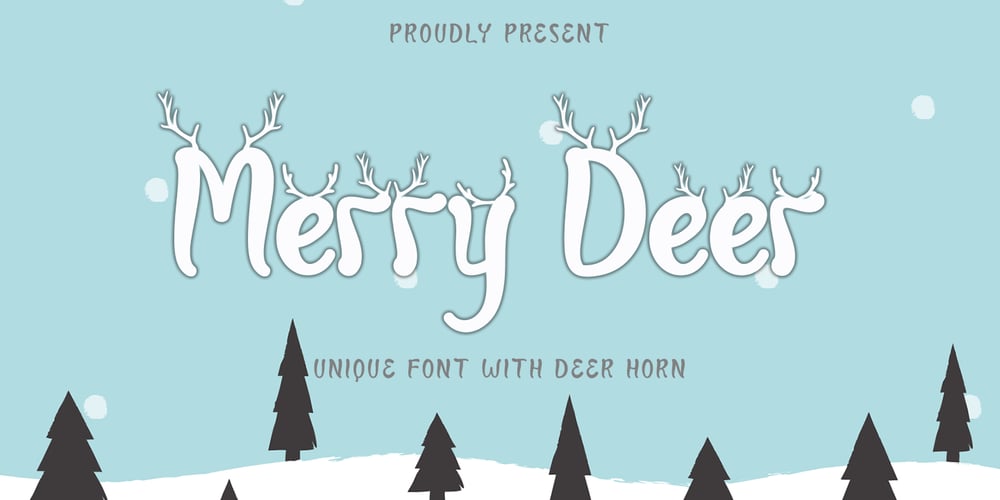
Merry Deer Font Family was designed by Isroni Yoga Prasetya and published by Yoga Letter. Merry Deer contains 1 styles and family package options. “Merry Deer” is a unique display typeface with a deer horn embellishment added to the font. This will add a unique and funny feel to any writing or work you make. “Merry Deer” is PUA coded which means you can access all the glyphs and sweeps easily!FEATURES:UppercaseLowercaseSwashNumbers & PunctuationMultilingual SupportPUA codingopen type